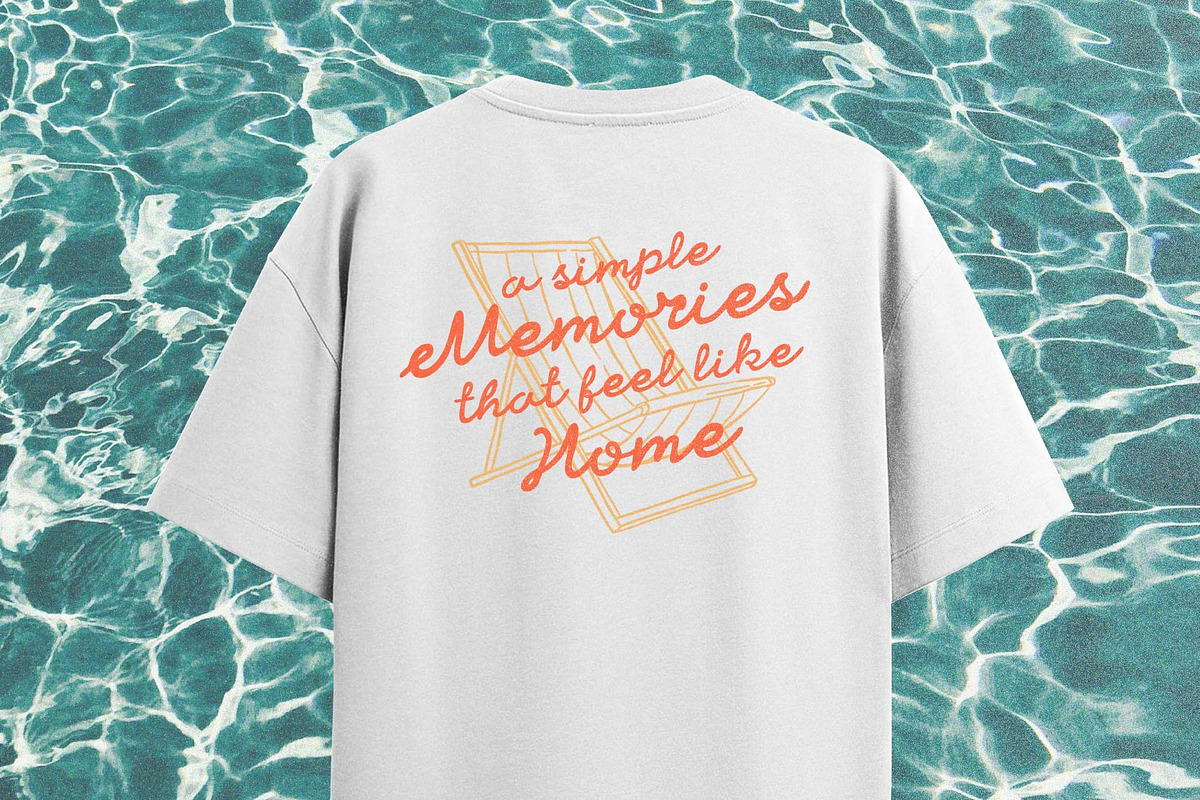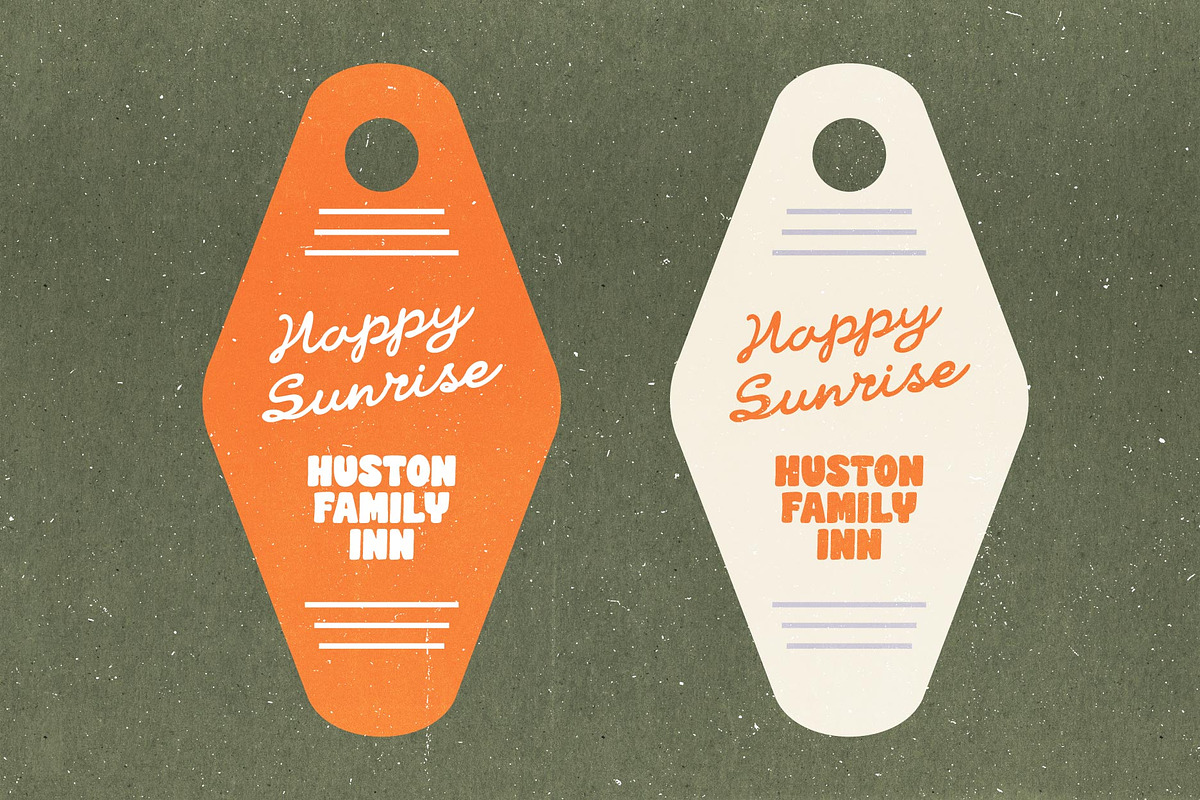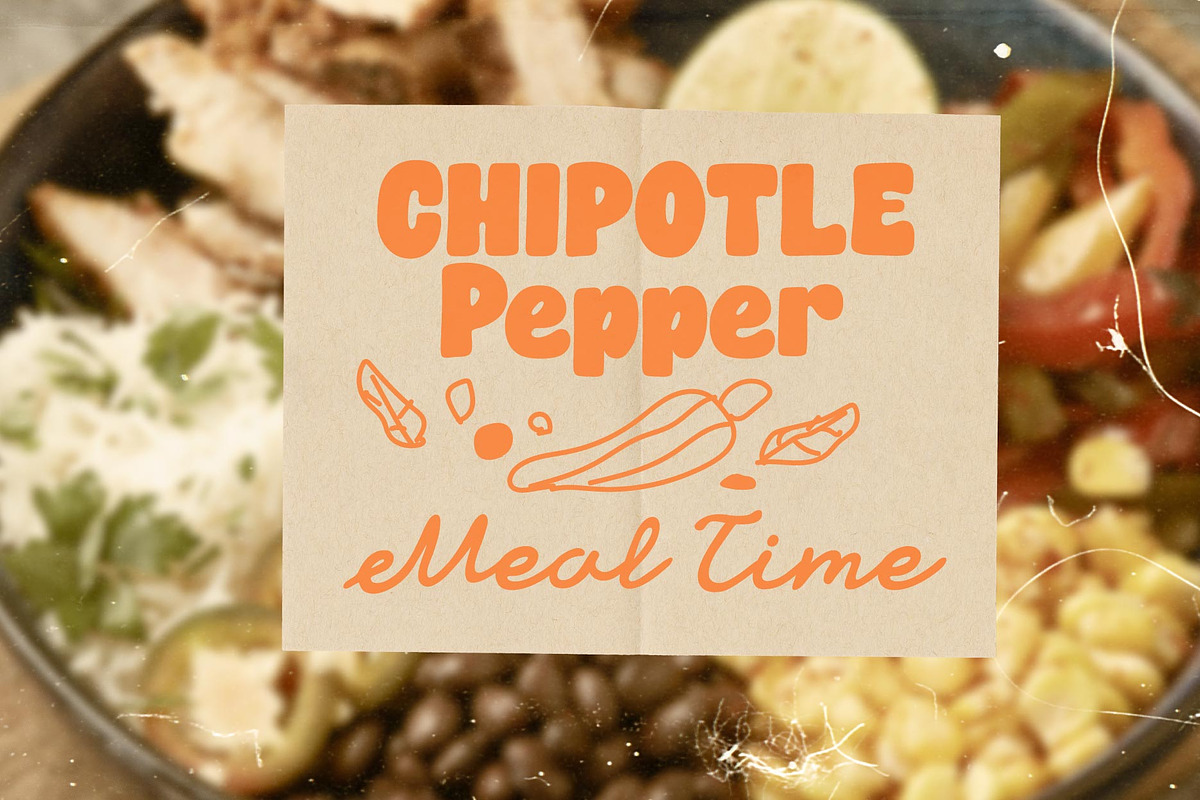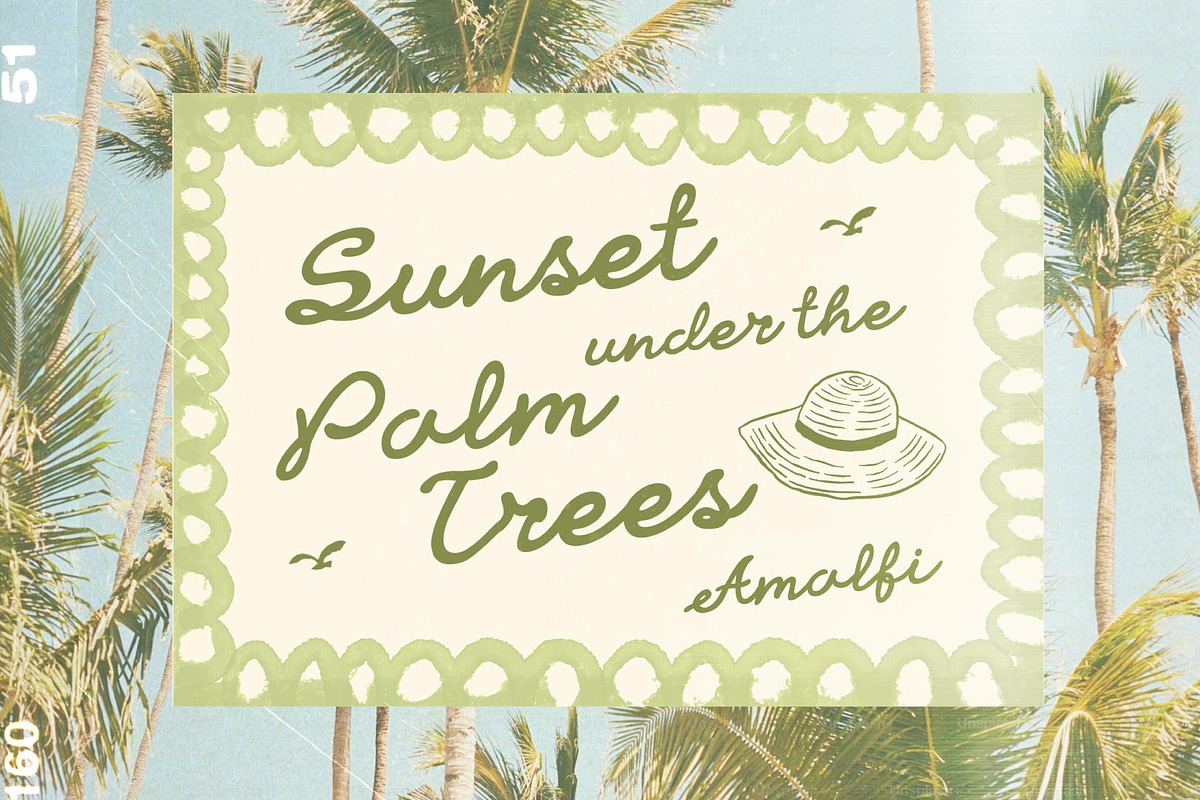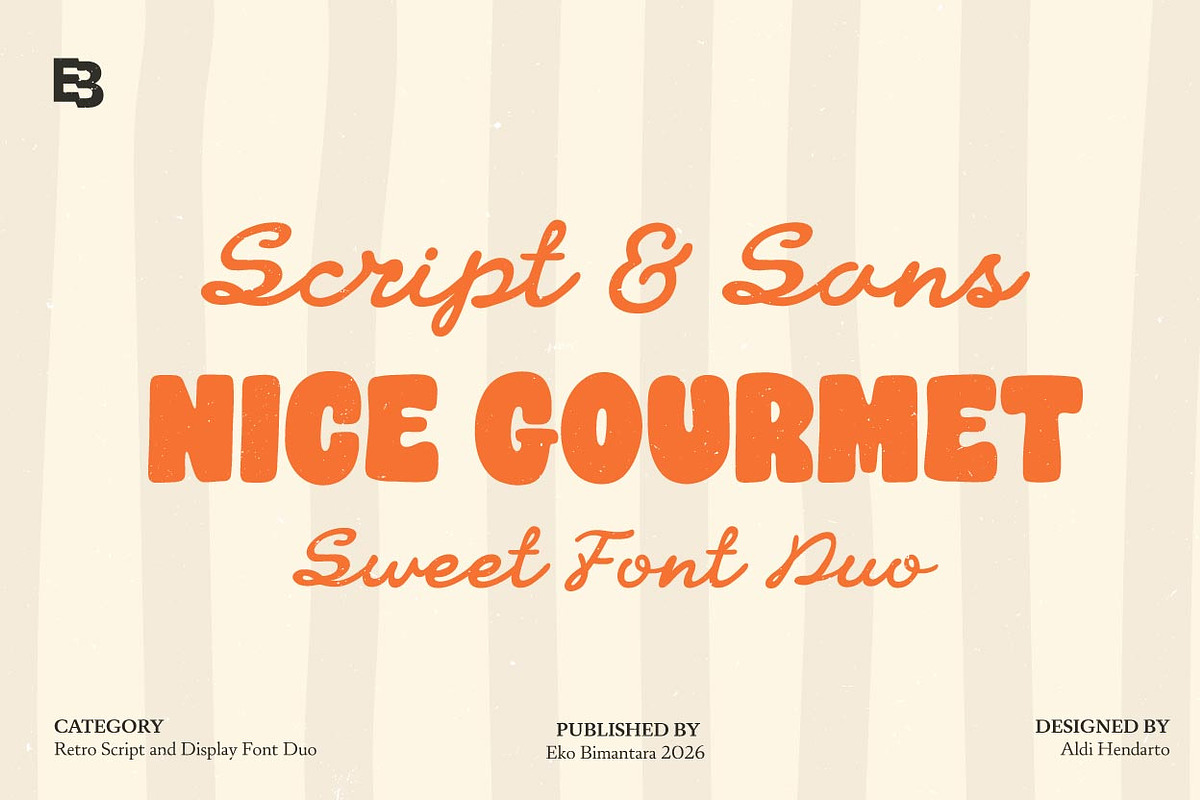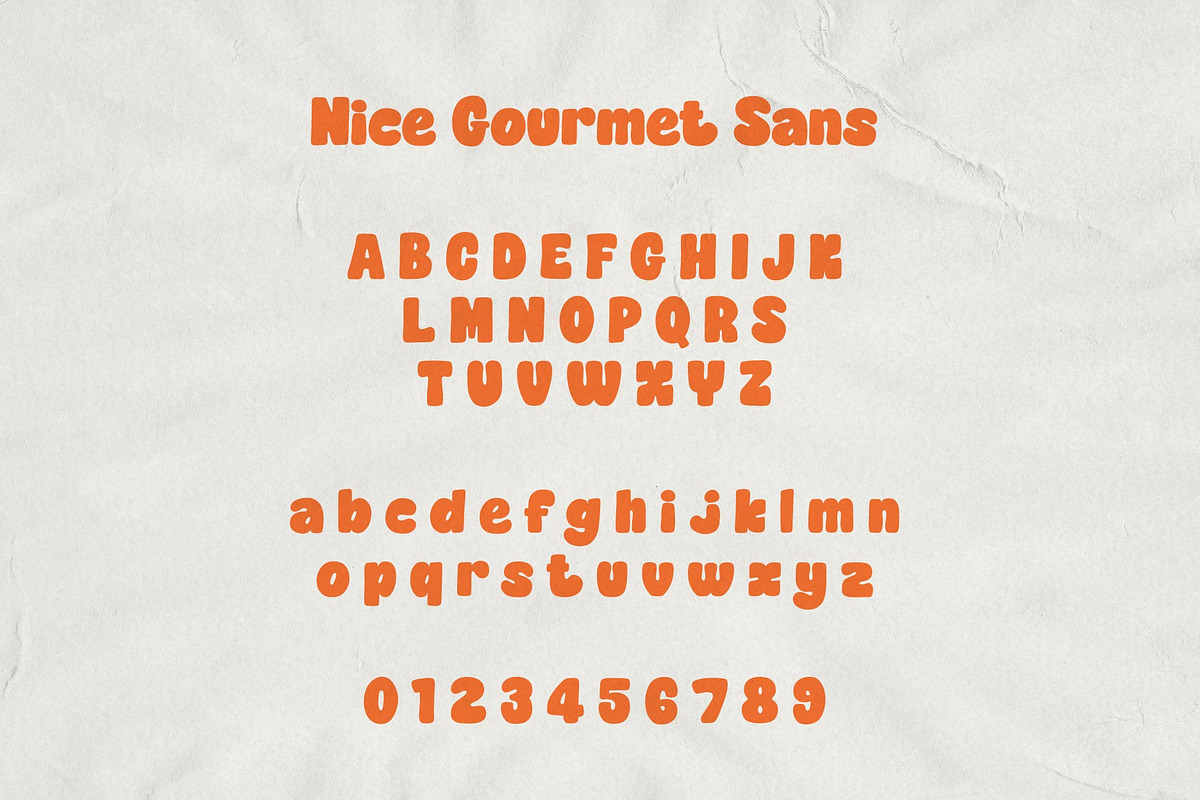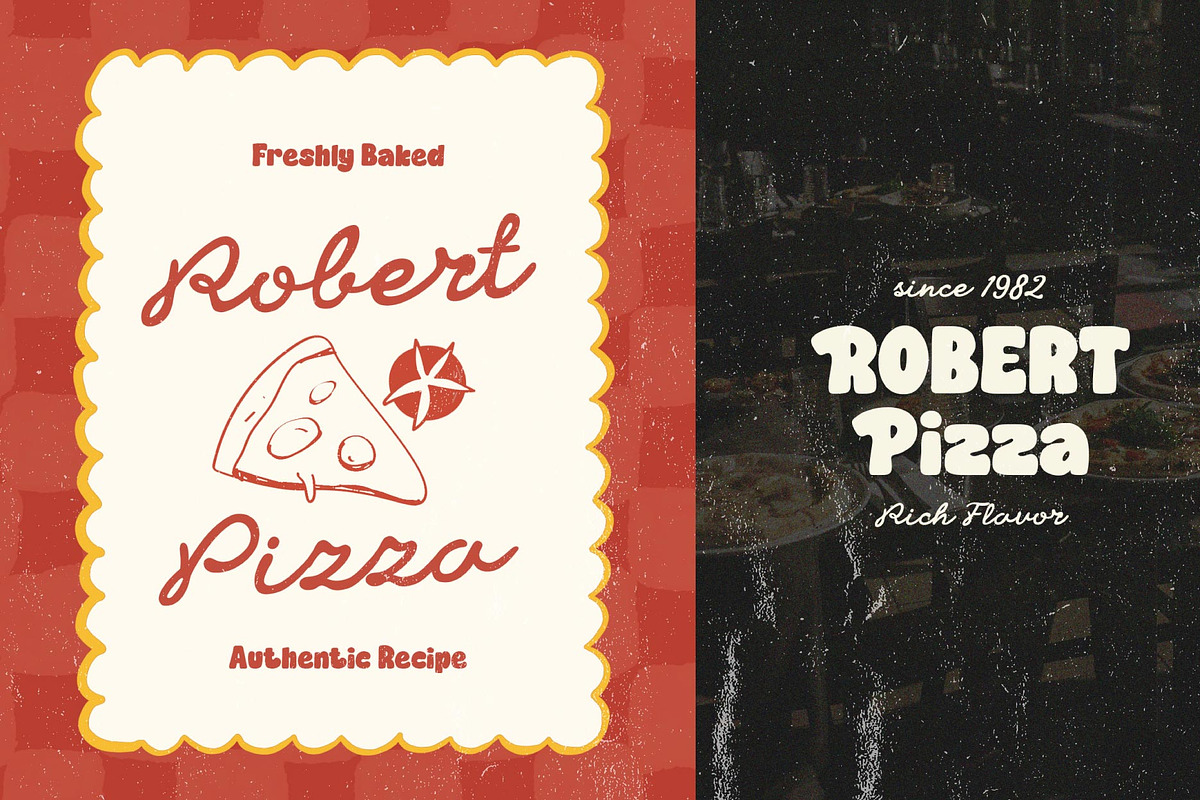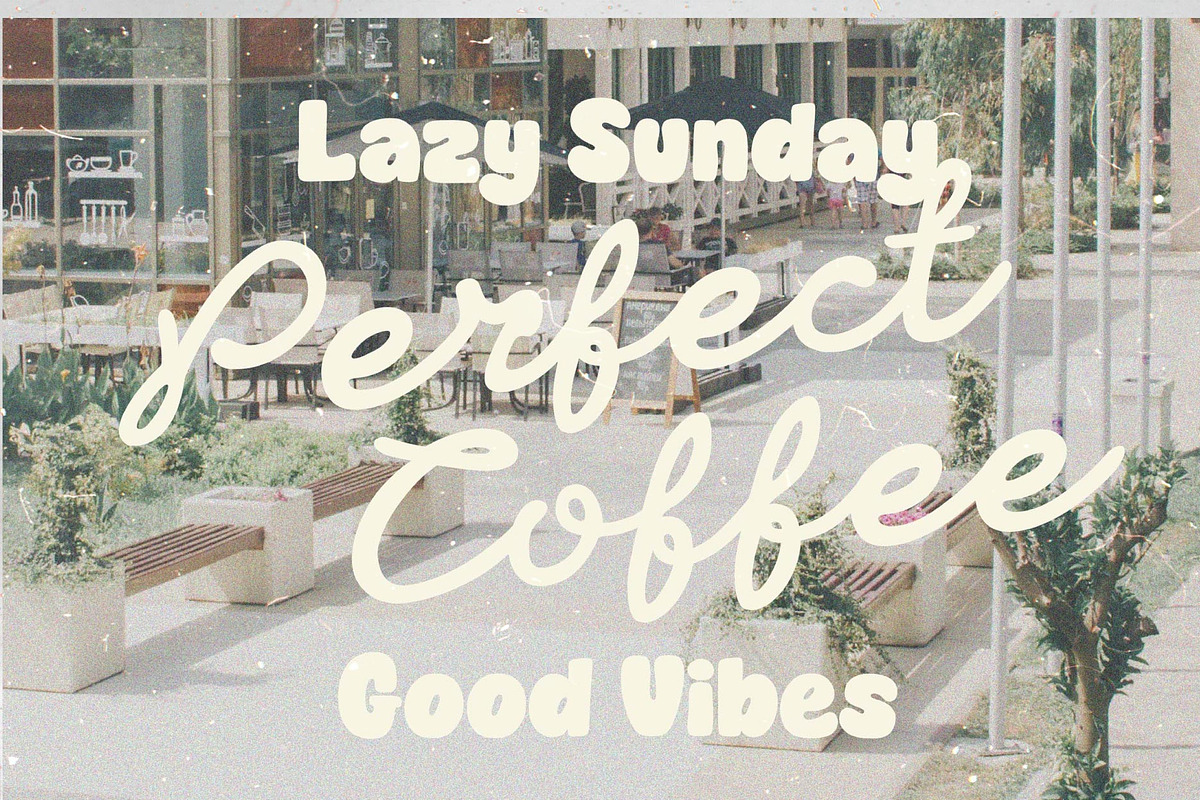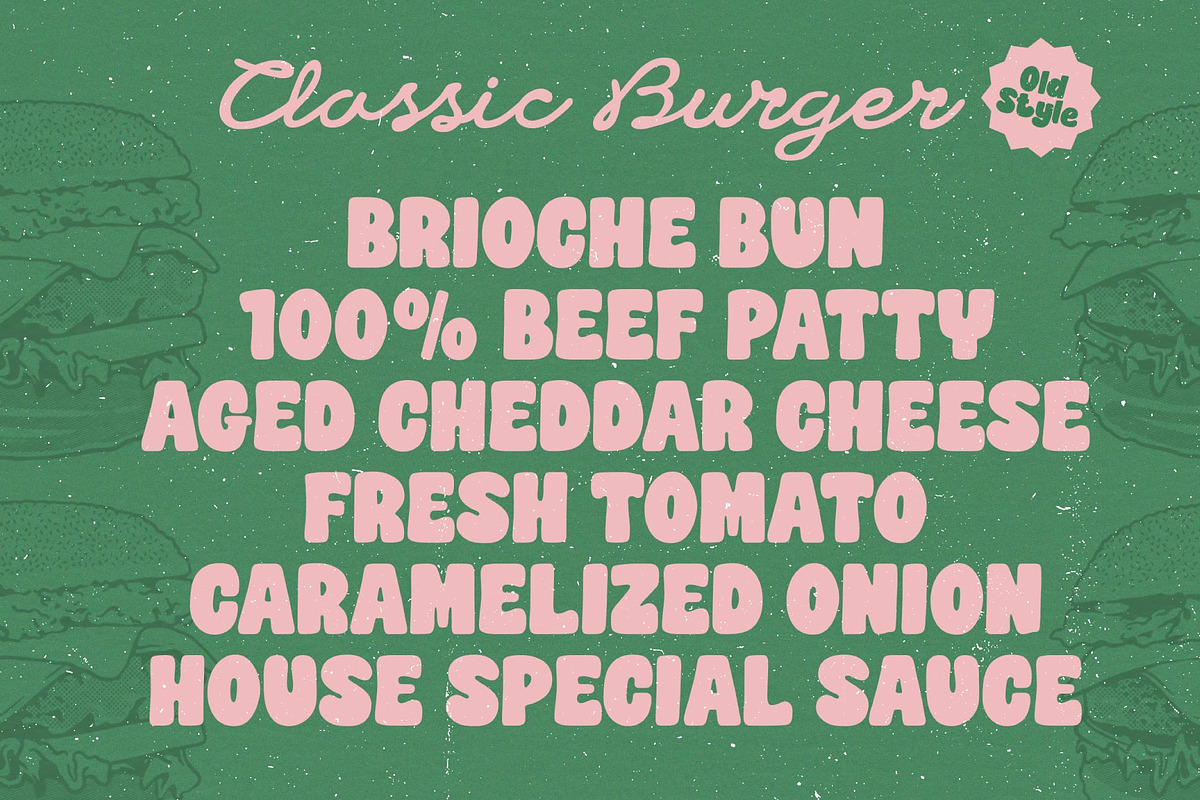
Nice Gourmet; Font Duo
Nice Gourmet is a charming font duo that blends a smooth handwritten script with a bold, rounded sans serif, creating a perfect balance between elegance and playfulness. The script style delivers a sweet, friendly, and personal touch, while the sans serif brings strong readability and visual impact. Together, they form a harmonious pairing ideal for eye-catching headlines and expressive branding. Designed with a warm and appetizing personality, Nice Gourmet is especially suitable for food and beverage branding, café menus, packaging, logo designs, posters, social media graphics, and lifestyle products. Its soft curves and cheerful character make it feel inviting and modern, while still maintaining a professional finish. Whether used separately or as a duo, Nice Gourmet helps your designs look delicious, fun, and full of personality.